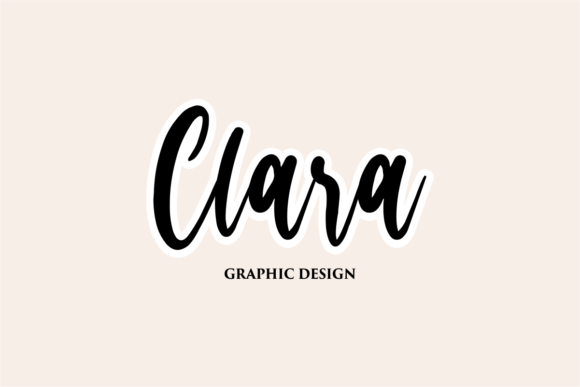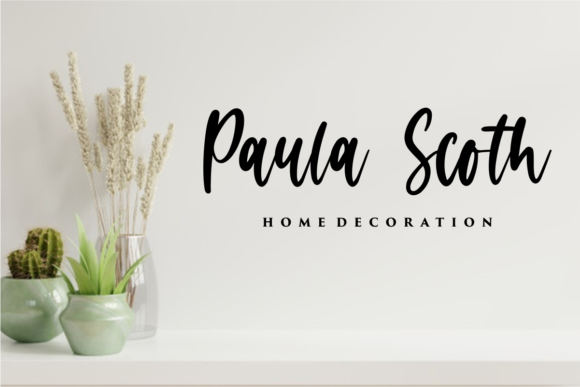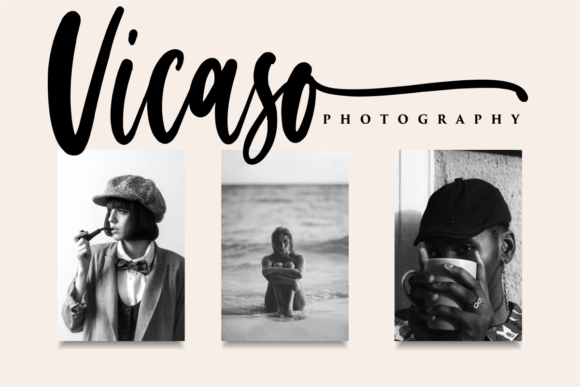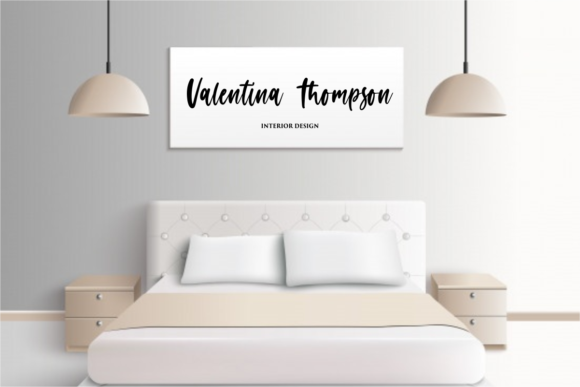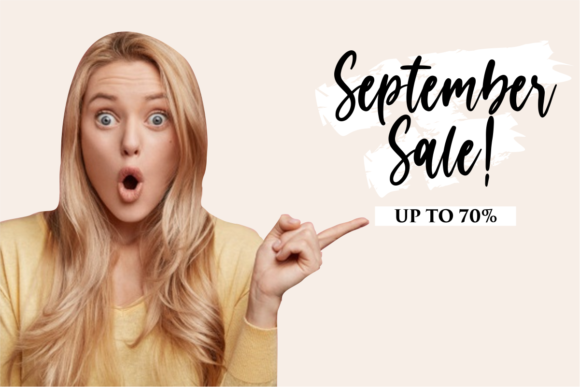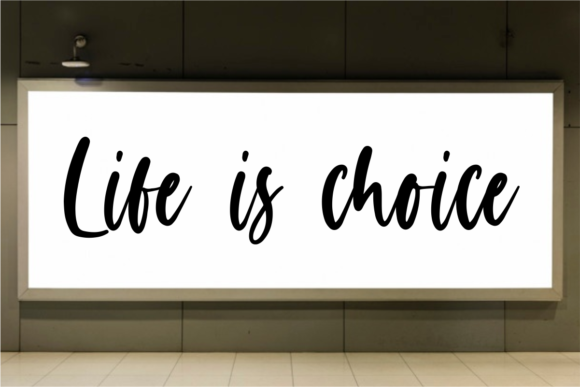
Introducing Feel Love Font: The Ultimate Handwritten Font for Your Design Needs
Are you a designer or crafter looking for a unique and elegant font to add a personal touch to your designs? Look no further than Feel Love Font, an incredibly distinct, delicate, and timeless handwritten font that’s perfect for a variety of design projects.
What Makes Feel Love Font So Special?
Feel Love Font is a beautifully crafted handwritten font that’s designed to add a touch of elegance and sophistication to your designs. Its delicate and intricate strokes make it perfect for creating stunning wedding invitations, thank you cards, quotes, greeting cards, logos, business cards, and more.
One of the standout features of Feel Love Font is its unique and distinctive style. Unlike other fonts that can look generic or overused, Feel Love Font has a one-of-a-kind charm that will make your designs stand out from the crowd.
Wedding invitations, save-the-date cards, and other event designs require a special kind of font that can convey the romance and elegance of the occasion. Feel Love Font is the perfect choice for these types of designs, with its delicate and cursive strokes that evoke a sense of love and sophistication.
Imagine creating beautiful wedding invitations that set the tone for the big day, or designing stunning thank you cards that express your gratitude to loved ones. With Feel Love Font, you can create designs that are both personal and professional, and that will leave a lasting impression on your audience.
Versatile and Easy to Use
Feel Love Font is not just limited to wedding and event designs. Its versatility makes it perfect for a wide range of design projects, including:
- Wedding invitations and save-the-date cards
- Thank you cards and greeting cards
- Quotes and typography designs
- Logos and branding designs
- Business cards and stationery
Why Choose Feel Love Font?
So why choose Feel Love Font over other fonts? Here are just a few reasons:
- Unique and distinctive style: Feel Love Font has a one-of-a-kind charm that will make your designs stand out.
- Delicate and elegant: The font’s delicate strokes make it perfect for creating sophisticated and elegant designs.
- Versatile: Feel Love Font can be used for a wide range of design projects, from wedding invitations to logos and branding designs.
Get Creative with Feel Love Font
With Feel Love Font, the design possibilities are endless. Here are a few ideas to get you started:
- Create a stunning wedding invitation suite, complete with save-the-date cards, wedding invitations, and thank you cards.
- Design a set of quote cards that feature inspiring and uplifting quotes.
- Develop a brand identity for your business, including a logo, business cards, and stationery.
- Create a set of greeting cards for special occasions, such as birthdays, anniversaries, and holidays.
Whatever your design needs, Feel Love Font is the perfect choice. Its unique and elegant style makes it perfect for adding a personal touch to your designs, and its versatility makes it suitable for a wide range of projects.
| Font Name | Feel Love Font |
| Author | Fikryal Studio |
In conclusion, Feel Love Font is a must-have for designers and crafters looking for a unique and elegant font to add a personal touch to their designs. Its delicate and intricate strokes make it perfect for creating stunning wedding invitations, thank you cards, quotes, greeting cards, logos, business cards, and more.